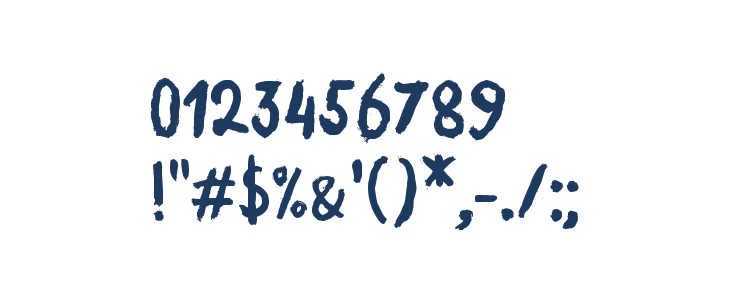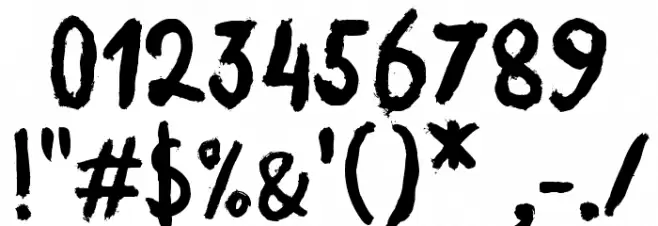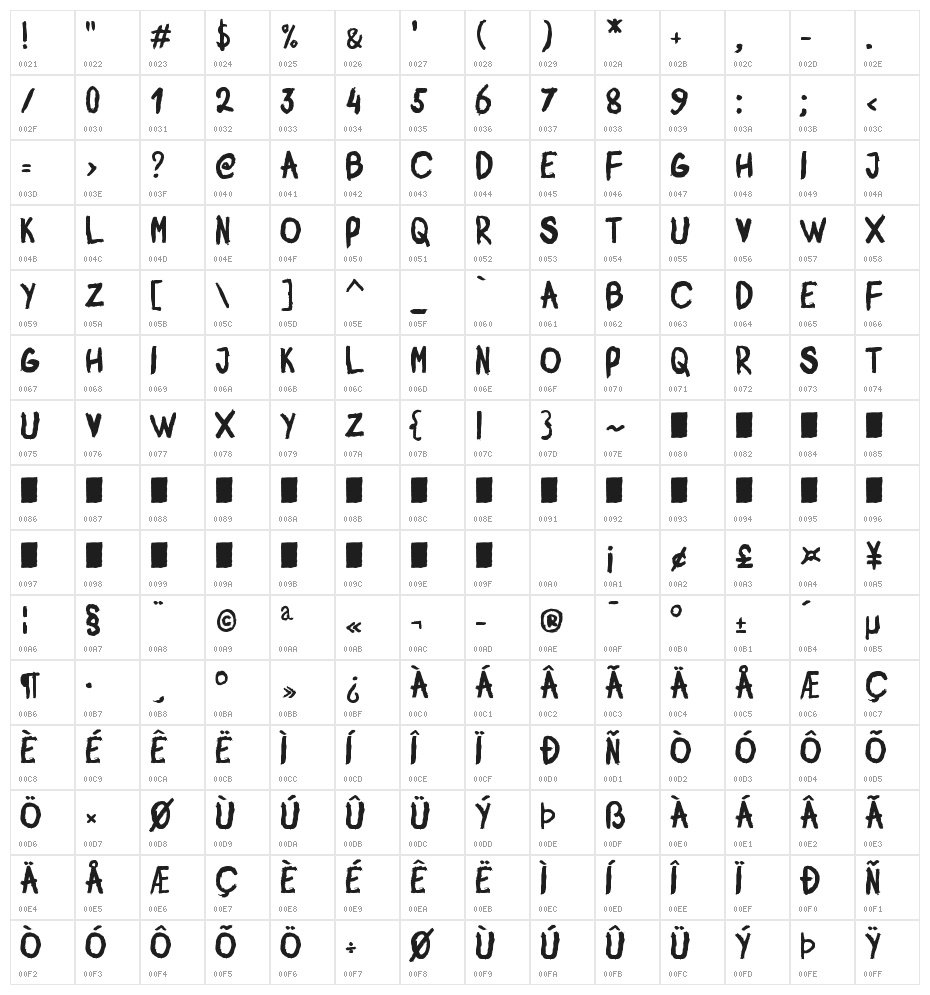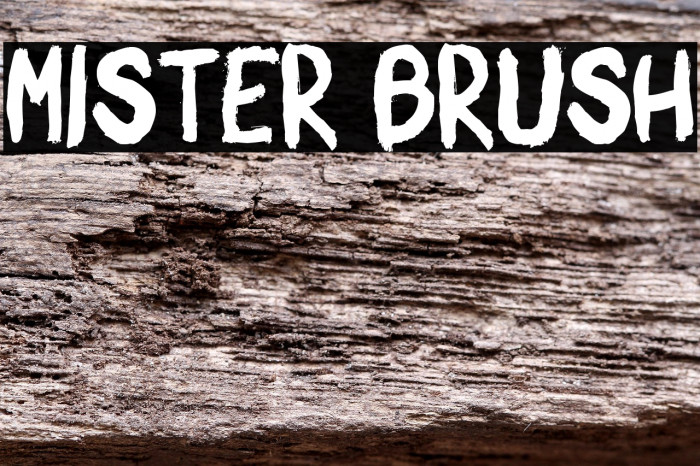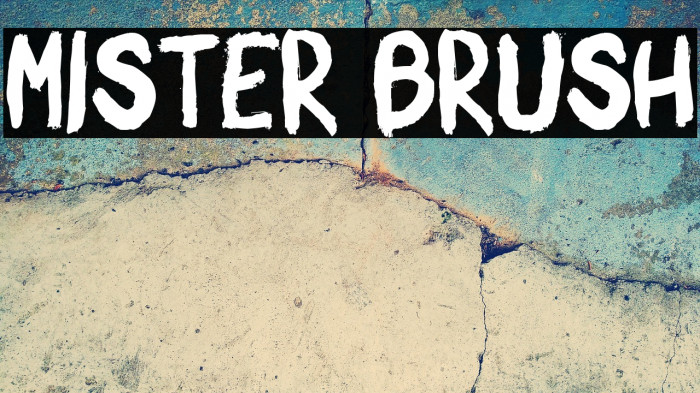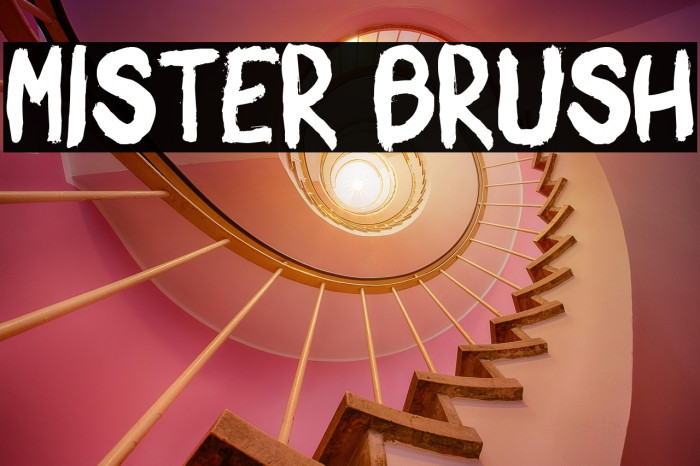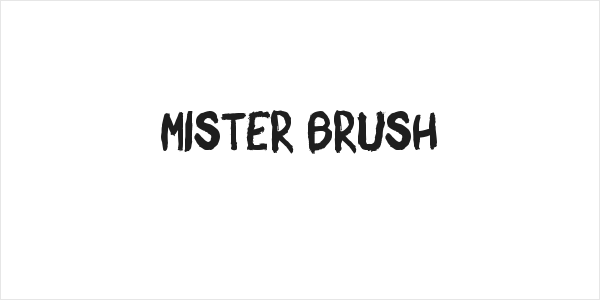
Mister Brush Font
Mister Brush Description
This font exudes a bold and expressive style, reminiscent of hand-painted brush strokes. The characters are robust and dynamic, with a slightly irregular form that adds to its artistic appeal. The uppercase and lowercase letters maintain a consistent style, with thick strokes and rough edges that give a raw, energetic feel. The numbers and special characters follow the same aesthetic, ensuring uniformity across all glyphs. This font's boldness and unique texture make it stand out, ideal for projects that require a strong visual impact.
| Proposed Projects | Ideal for posters, branding, album covers, and any creative project that requires a bold, artistic touch. |